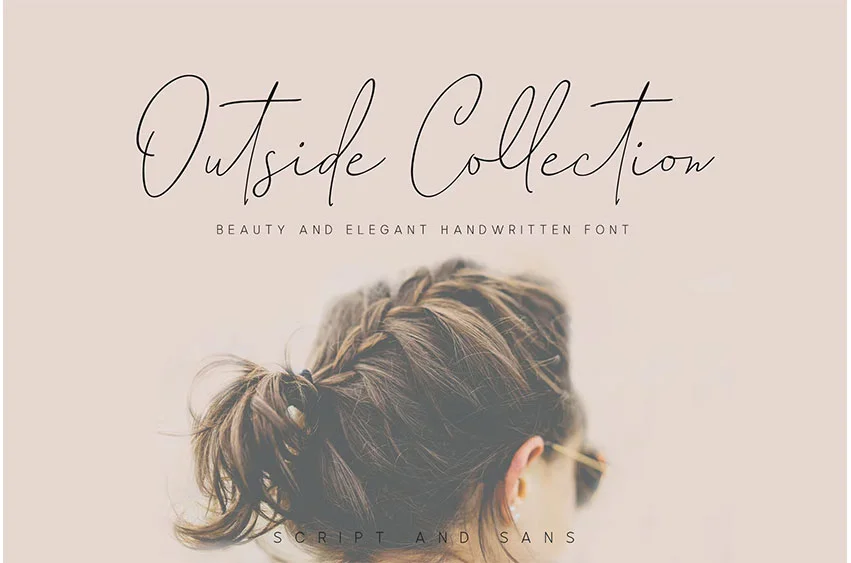
Outside Collection Signature Font
Outside Collection Signature Font Elegant and Beauty Font Collection with combination fashionable script handwritten and a classy contemporary sans. This combination makes your design more stylish and classy. Outside Collection offers beautiful typographic harmony for a diversity of design projects, including logos & branding, wedding designs, social media business, advertisements, and any design that you want.